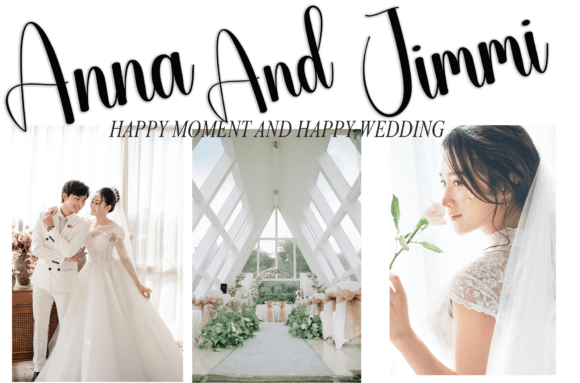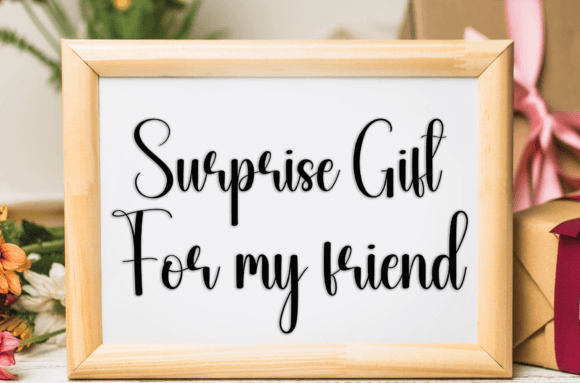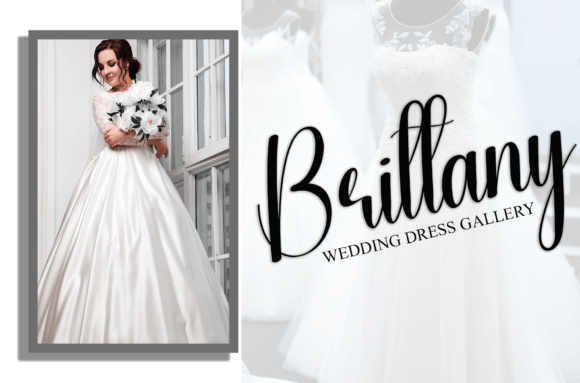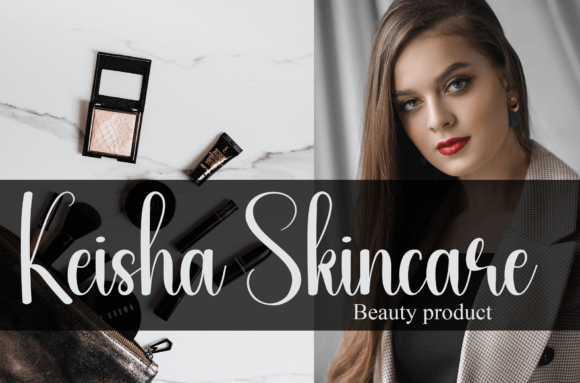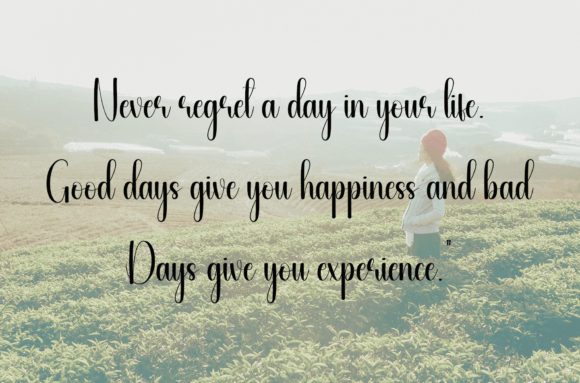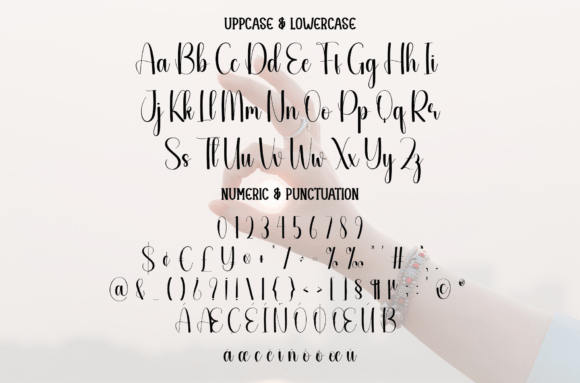
Bekind Font: The Sweet and Friendly Handwritten Font for Your Creative Projects
Are you looking for a font that can add a touch of warmth and personality to your designs? Look no further than Bekind Font! Bekind is a sweet and friendly handwritten font that is perfect for creating beautiful wedding invitations, cards, and other designs that require a fun and playful touch.
What Makes Bekind Font So Special?
Bekind Font is a fresh and neat handwritten font that is designed to bring a sense of joy and friendliness to your designs. Its sweet and delicate strokes make it ideal for creating beautiful and eye-catching headings, titles, and text. Whether you’re a designer, crafter, or DIY enthusiast, Bekind Font is the perfect choice for adding a personal touch to your projects.
Characteristics of Bekind Font
Bekind Font has several characteristics that make it stand out from other fonts. Some of its key features include:
- Sweet and friendly: Bekind Font has a warm and inviting feel that makes it perfect for creating designs that require a personal touch.
- Handwritten: Bekind Font is a handwritten font that has a unique and organic feel.
- Fresh and neat: Bekind Font is a clean and modern font that is easy to read and looks great in any design.
- Versatile: Bekind Font can be used for a wide range of design projects, from wedding invitations and cards to posters and social media graphics.
Uses for Bekind Font
Bekind Font is a versatile font that can be used for a wide range of design projects. Some of the most popular uses for Bekind Font include:
- Wedding invitations: Bekind Font is perfect for creating beautiful and romantic wedding invitations that set the tone for your special day.
- Cards: Bekind Font is great for creating handmade cards for birthdays, holidays, and other special occasions.
- Posters: Bekind Font can be used to create eye-catching posters for events, promotions, and other marketing campaigns.
- Social media graphics: Bekind Font is perfect for creating social media graphics that require a personal touch, such as Instagram posts and Facebook graphics.
Tips for Using Bekind Font
Here are some tips for using Bekind Font in your designs:
- Use it sparingly: Bekind Font is a beautiful font, but it can be overwhelming if used too much. Use it sparingly to add a touch of personality to your designs.
- Pair it with other fonts: Bekind Font pairs well with other fonts, such as sans-serif fonts and script fonts. Experiment with different font combinations to find the perfect look for your design.
- Experiment with colors: Bekind Font looks great in a variety of colors, from bright and bold to soft and pastel. Experiment with different colors to find the perfect look for your design.
Bekind Font is a sweet and friendly handwritten font that is perfect for adding a personal touch to your designs. Its fresh and neat strokes make it ideal for creating beautiful wedding invitations, cards, and other designs that require a fun and playful touch. With its versatility and ease of use, Bekind Font is a great choice for designers, crafters, and DIY enthusiasts alike.